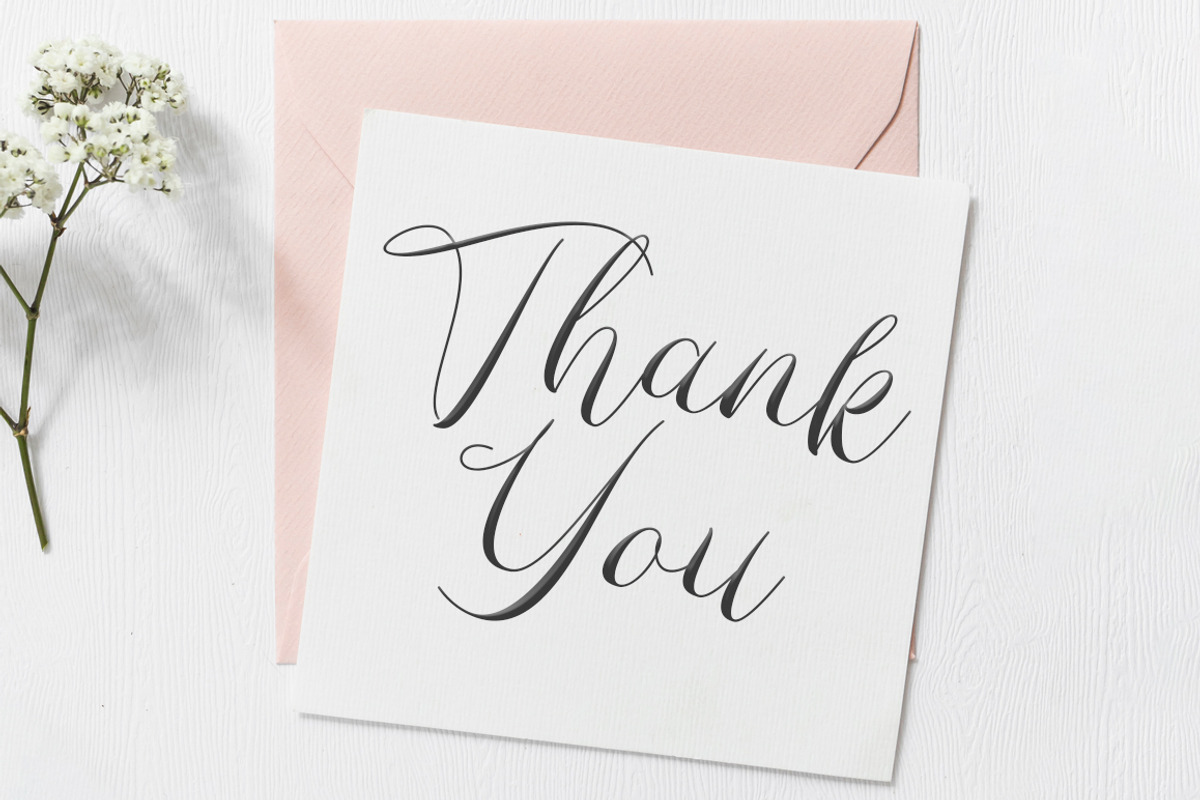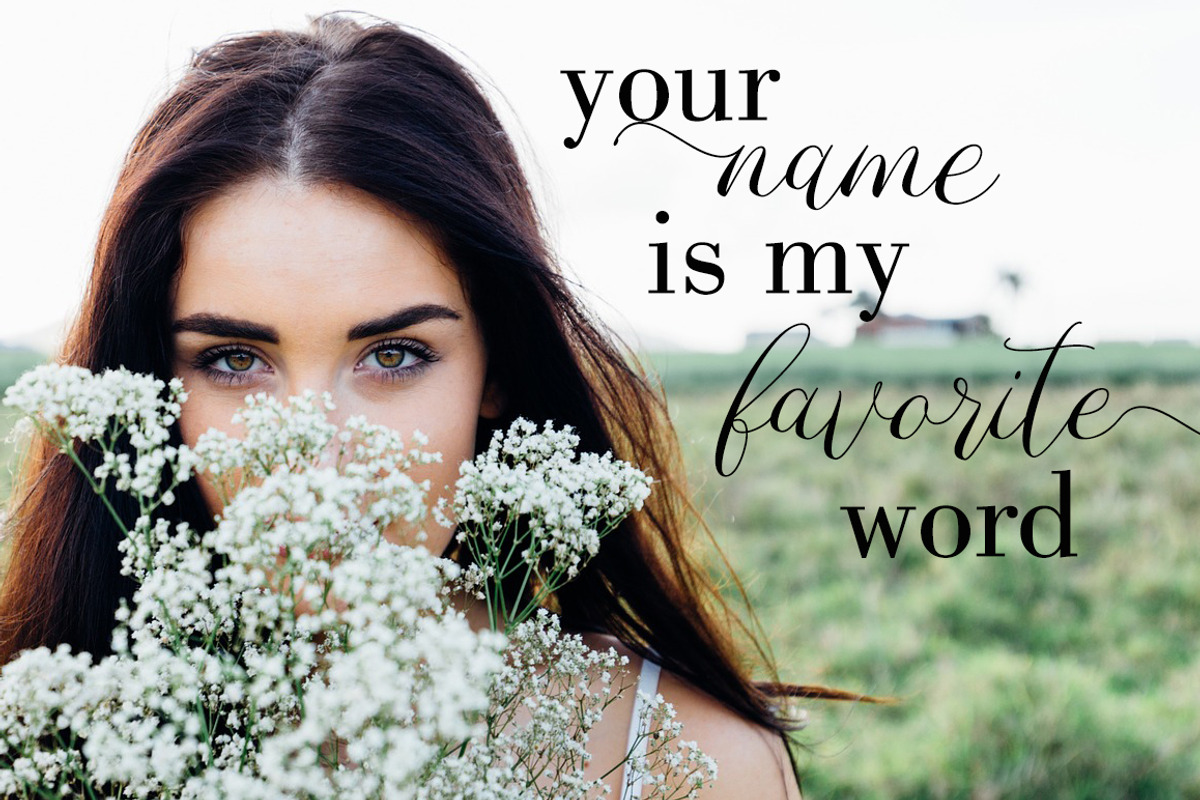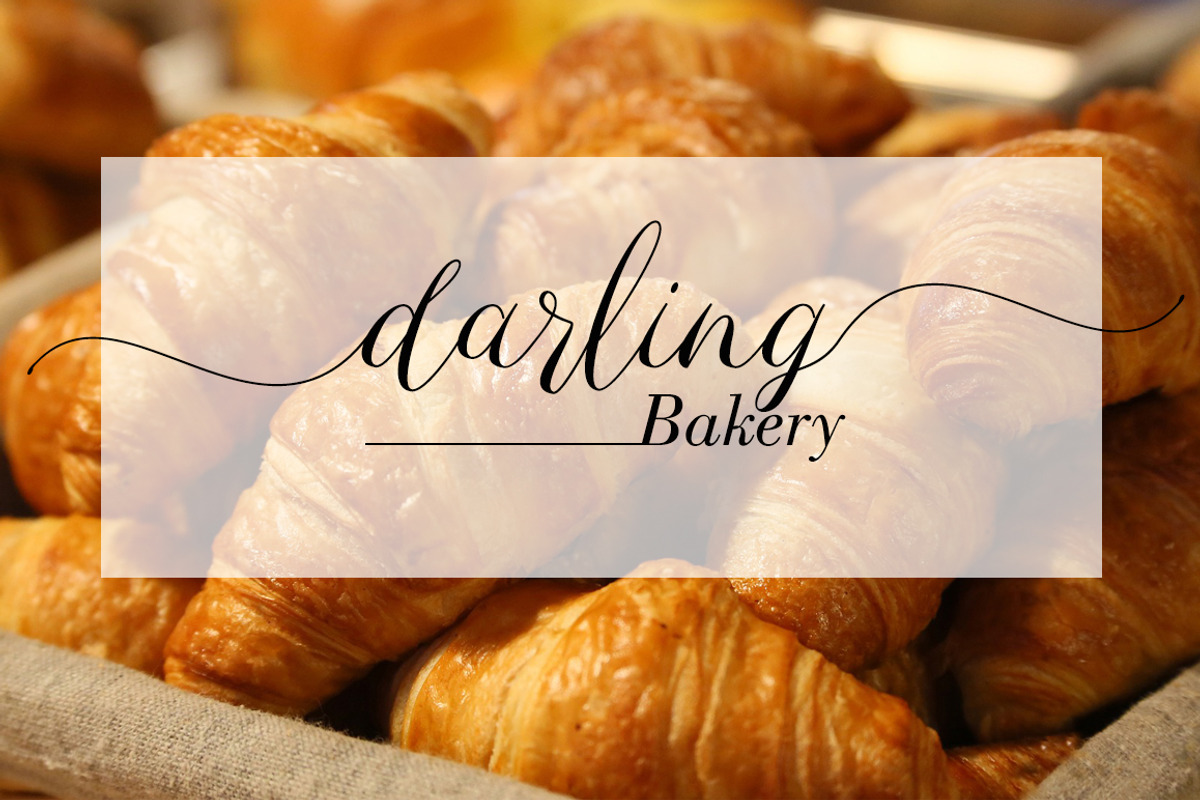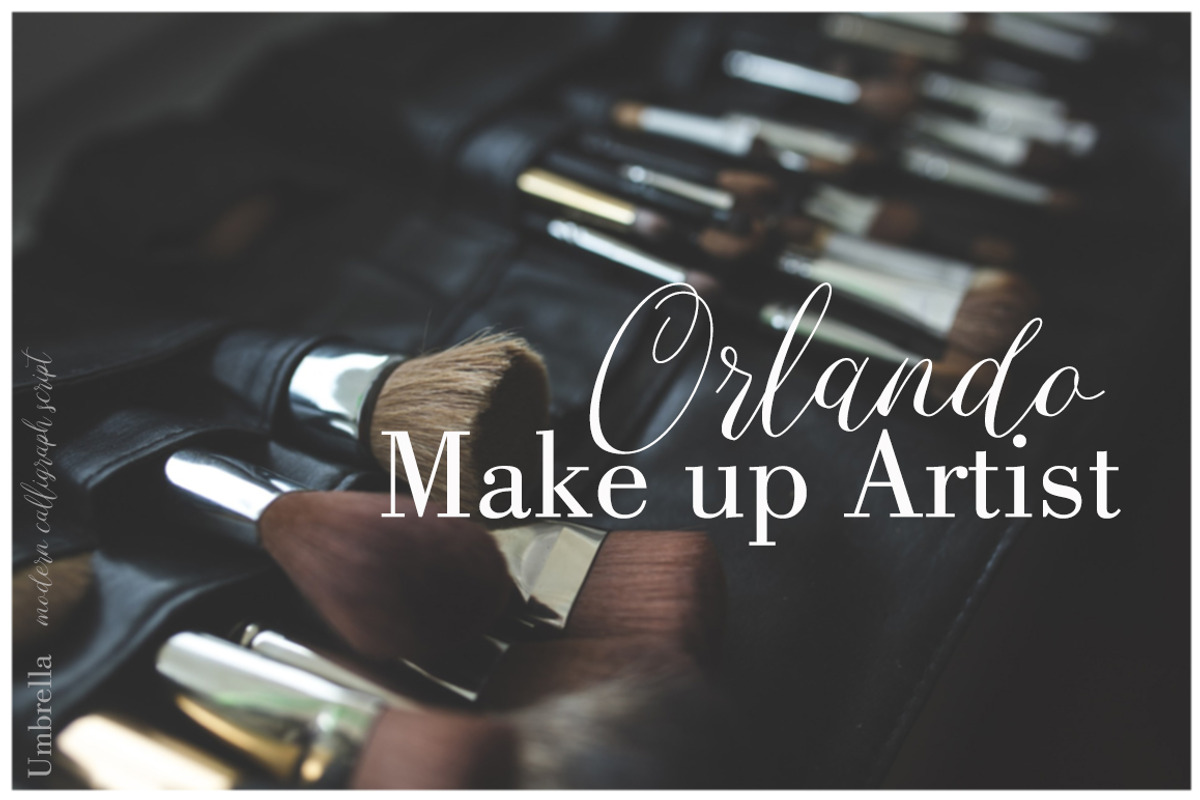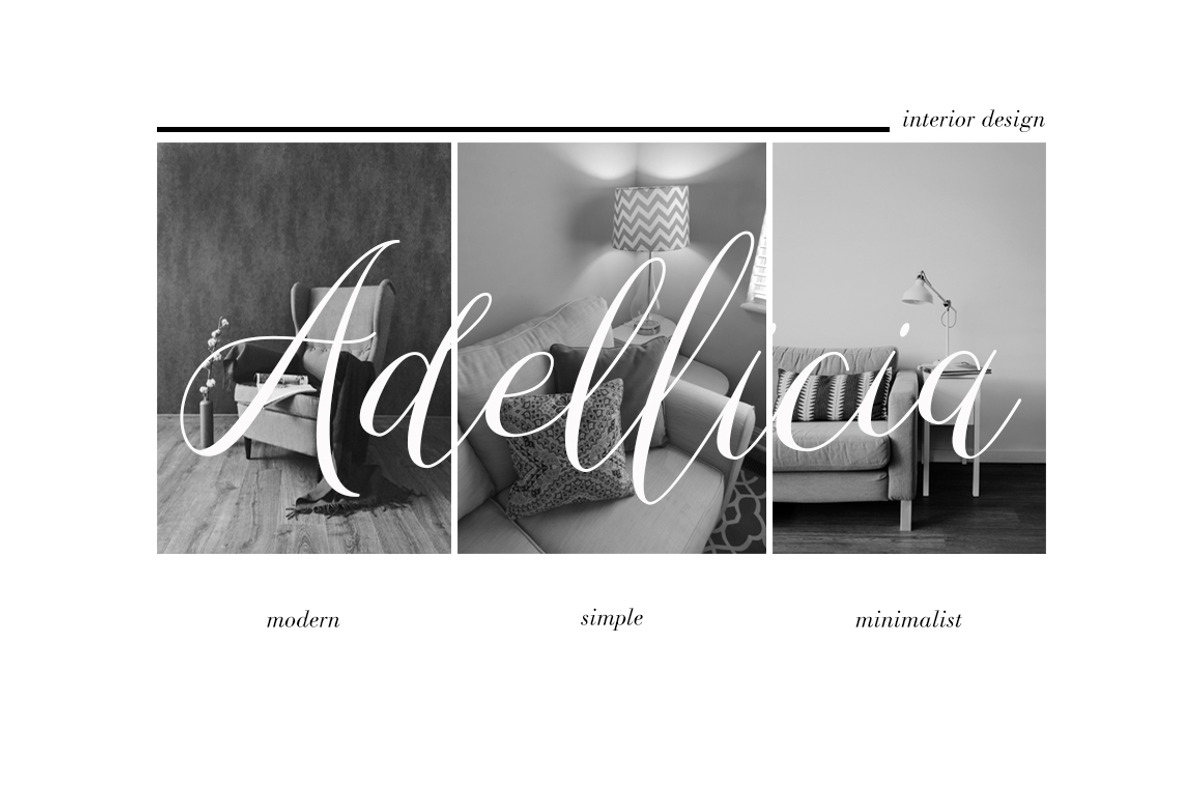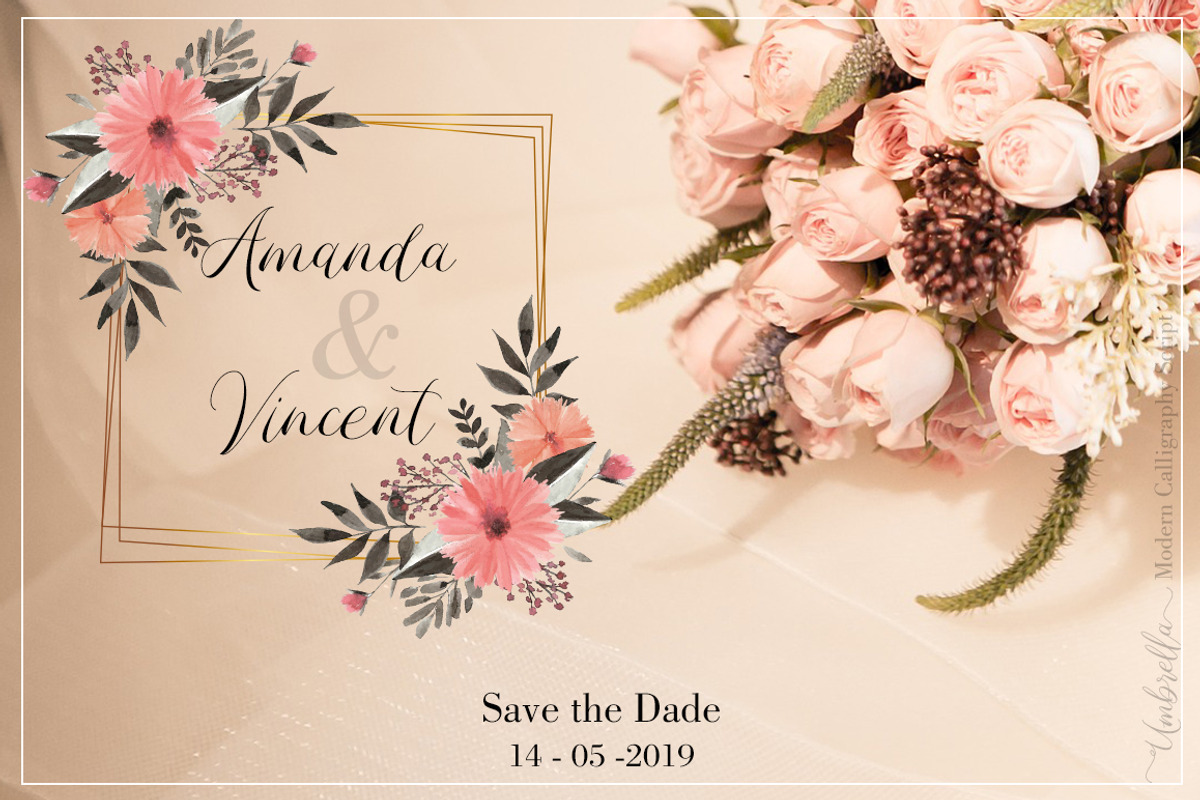
Umbrella Font
Umbrella font Script is a modern script typeface. It has a striking, yet elegant look which can be used to make your design stand out.
It can be used for logos, wedding invitations, titles, signatures, t-shirts, letterheads, signboards, labels, posters and much more!
Umbrella font Script is equipped with 551 glyphs. and by having many of these glyphs there will be able to choose the letters according to your likes, lots of variations and options for each letter, so you can customize on your design choices.
Umbrella Font by Khalidin.Ink fits naturally into Branding, posters, packaging, typography.